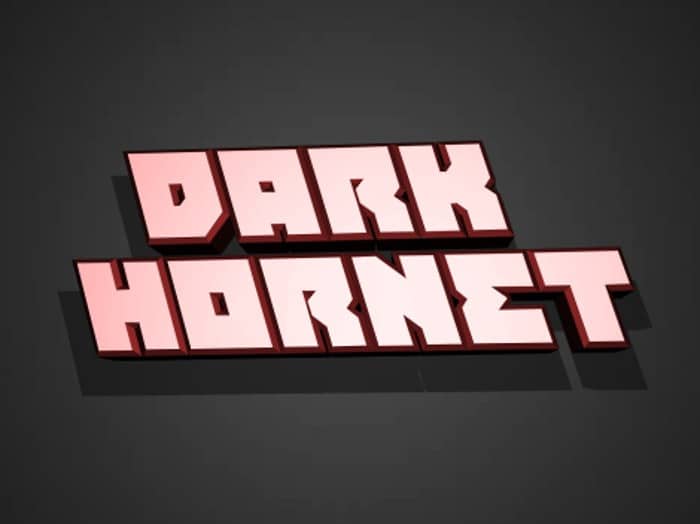
Dark Hornet Display Font
Dark Hornet Display Font is a powerful display font for making logos and setting headlines. This font comes with the following 22 versions: Regular, Italic, Semi-Italic, Super-Italic, Leftalic, Semi-Leftalic, Condensed, Condensed Italic, Expanded, Expanded Italic, 3D, 3D Italic, Gradient, Gradient Italic, Gradient 2, Gradient 2 Italic, Halftone, Halftone Italic, Twotone, Twotone Italic, Laser and Laser Italic.